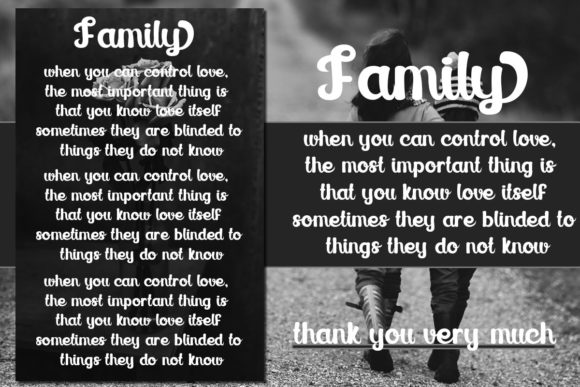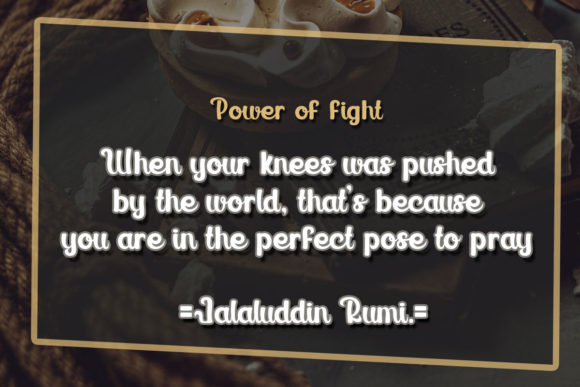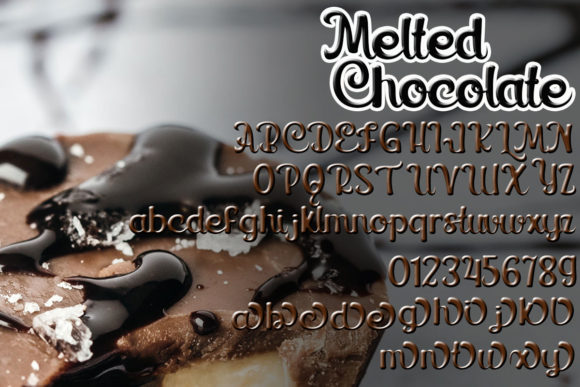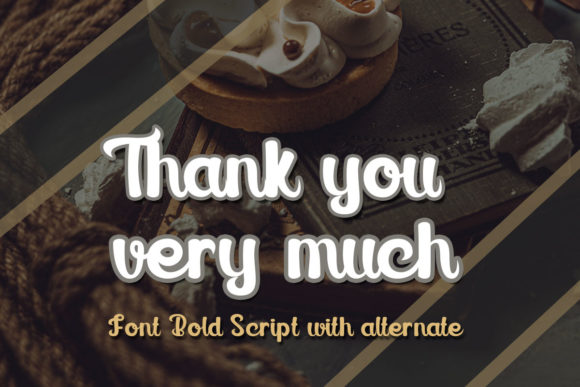
Introduction to Melted Chocolate Font Font
Fonts play a crucial role in design, and the Melted Chocolate Font font is a typeface that brings both character and versatility to any project. Whether you’re working on a branding project, a website, or a print design, the Melted Chocolate Font font offers a unique style that can elevate your work.
Melted Chocolate is a very cute display font.
Whimsical and round lettered, this font will brighten up each of your designs This font is PUA encoded which means you can access all of the glyphs and swashes with ease.
Key Features of Melted Chocolate Font Font
• ✅ High-quality typeface designed for professional use
• ✅ Includes a wide range of glyphs and characters
• ✅ Ideal for logos, branding, websites, and print
Why Choose Melted Chocolate Font Font?
The Melted Chocolate Font font is more than just a typeface – it’s a design tool that helps you communicate your message with style and clarity. Its unique character set and versatile design make it suitable for a wide range of applications, from elegant invitations to bold headlines.
With its carefully crafted letterforms and balanced proportions, the Melted Chocolate Font font ensures readability and visual appeal across all mediums.
What makes Melted Chocolate Font font special?
The Melted Chocolate Font font stands out with its unique design, exceptional readability, and versatility across various design applications.